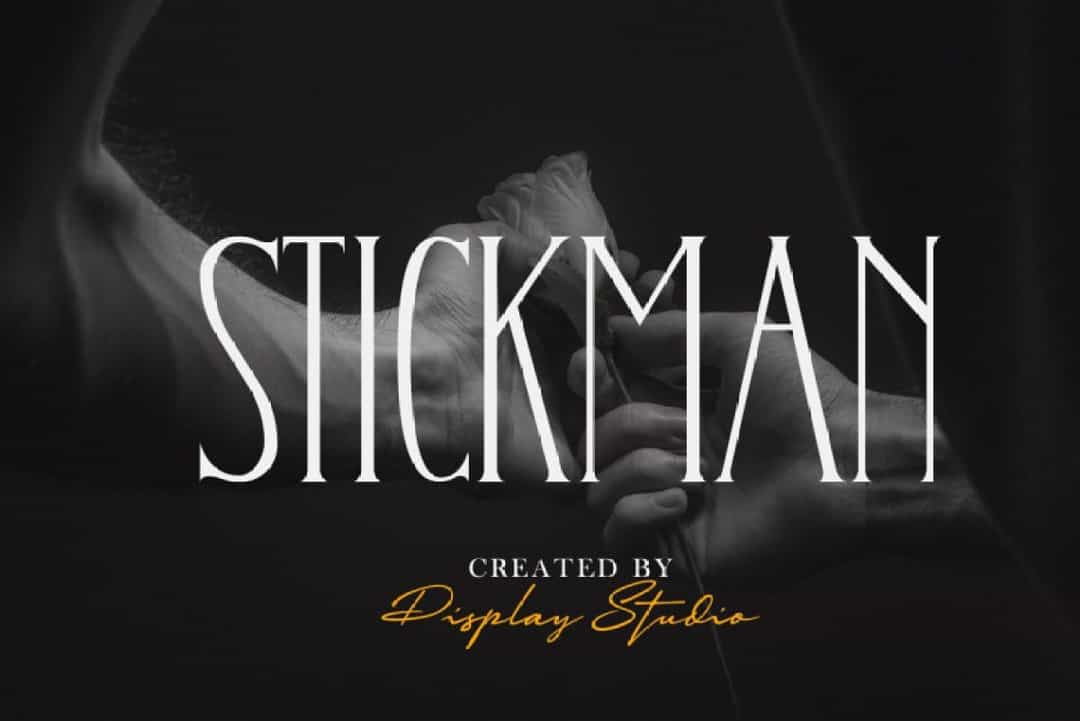
Discover Stickman Font, part of the Serif collection—a versatile and unique font perfect for adding a personal touch to your projects. Download it for free and enjoy crafting designs with style, from invitations to social media posts. This font is available exclusively for personal use, giving you the freedom to create without limits. Unlock your creativity with Stickman Font today!
Stickman font family offers three options – serifs with fancy edges and slab serifs – ideal for branding purposes, invitations and greeting cards as well as any design project that demands multilingual features and multiple styles. Stickman adds aesthetic value to any project thanks to its multilingual features and various styles; perfect for branding projects!